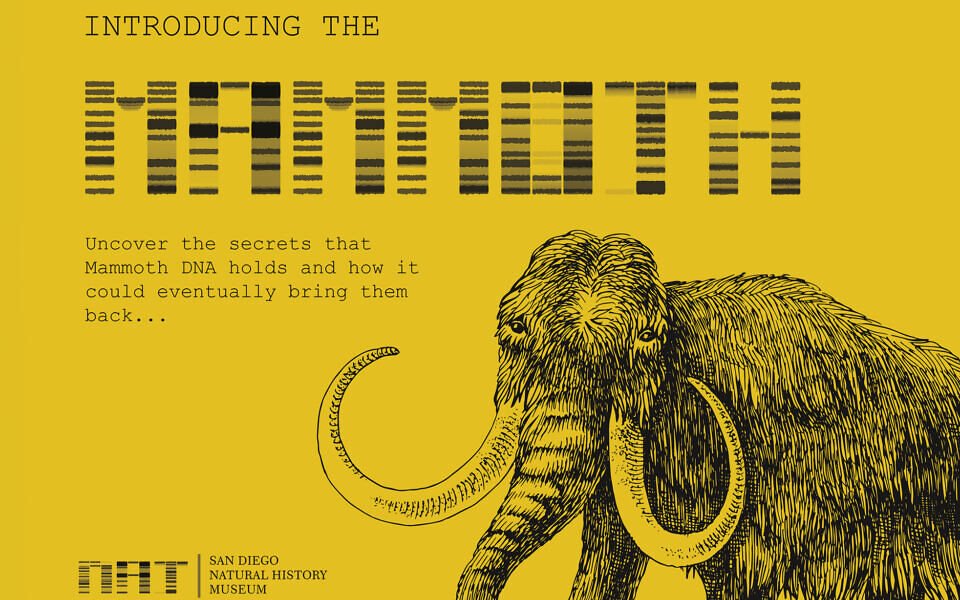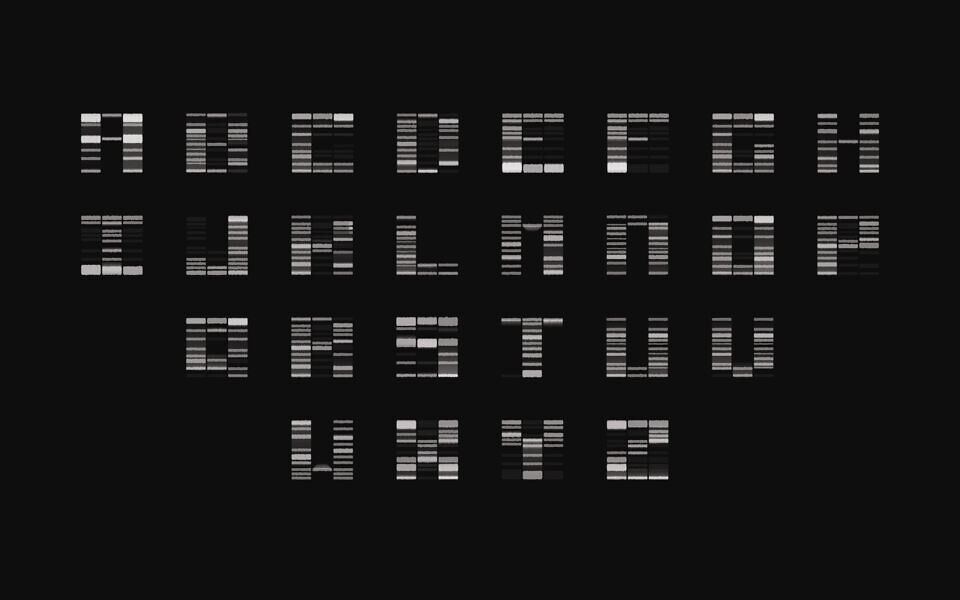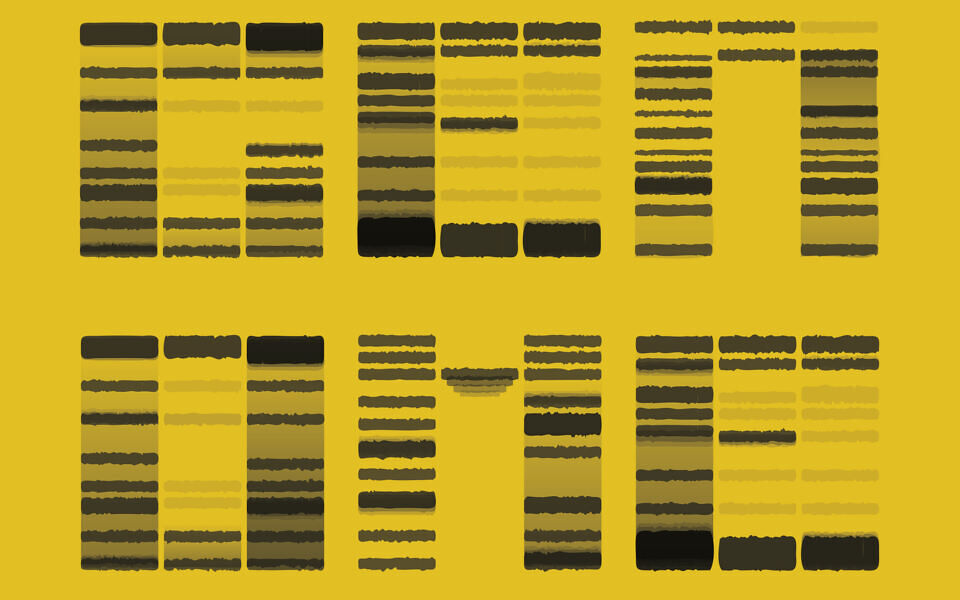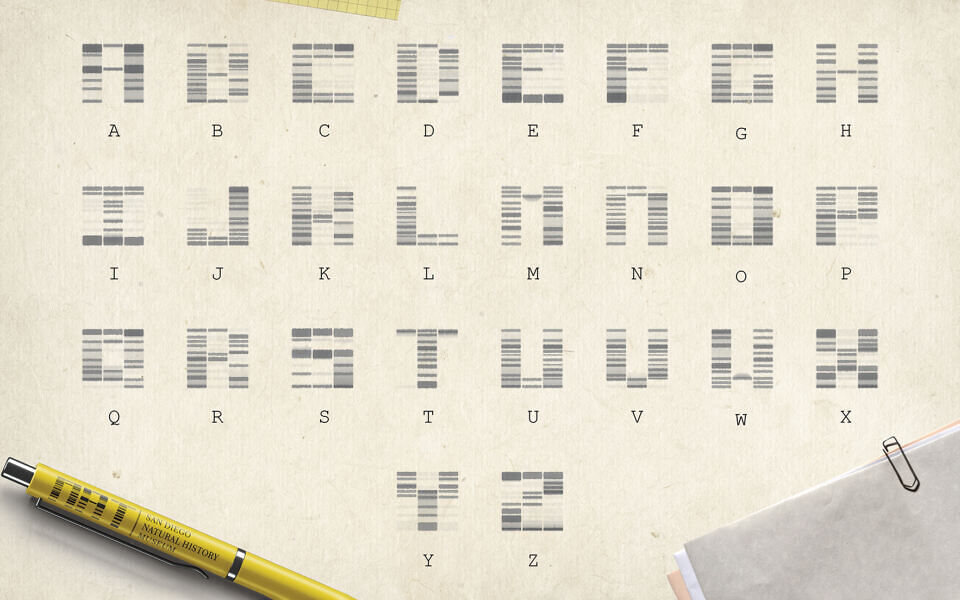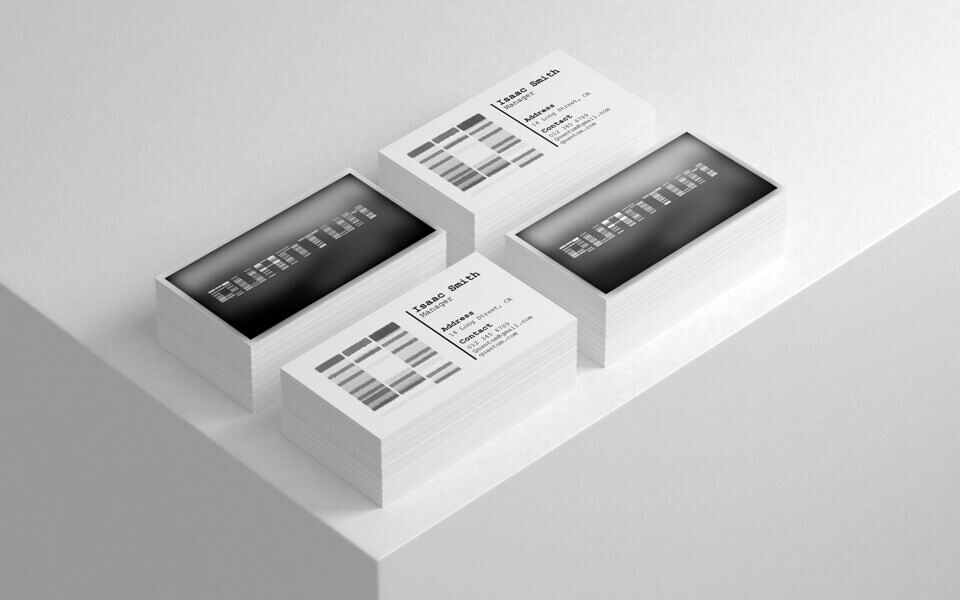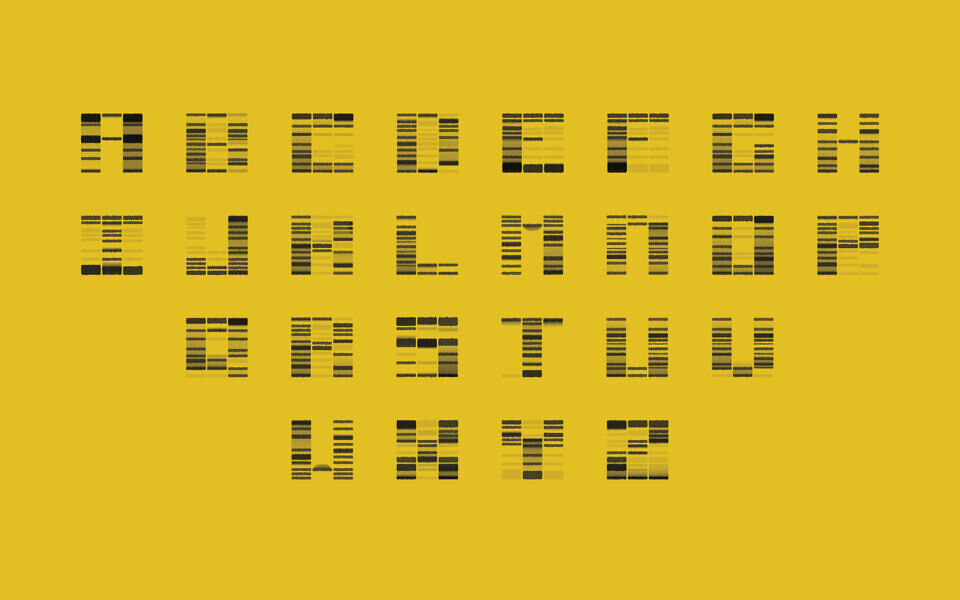
Genome is a groundbreaking font inspired by mammoth DNA sequences from the Mammoth Genome Project at Pennsylvania State University. Using 15 DNA samples, the font’s design captures genetic patterns through PCR and gel electrophoresis, reflecting the mammoth’s ancient history and futuristic science.
Each letter, derived from DNA molecule bands, varies in size to reveal insights into the mammoth’s lifestyle and extinction. Tailored for research and educational centers like museums and galleries, Genome blends modern and historical aesthetics.
Its bold, eye-catching style suits museum displays, posters, and tech logos, with a 42×3 grid ensuring 26 unique letter constructs for versatile, geometric designs.